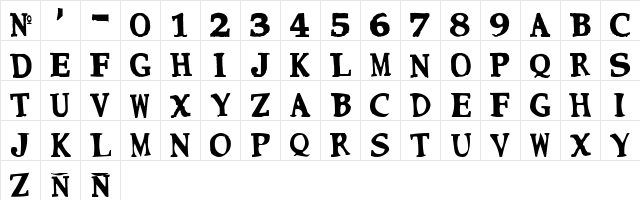
CMON NEAR Normal
Design Context for CMON NEAR Typeface
CMON NEAR is a composed and adaptable typeface that performs quietly and consistently across a wide range of design contexts.